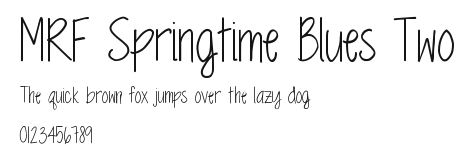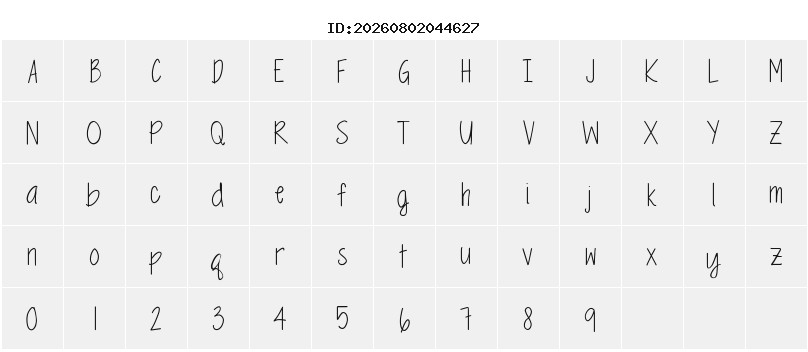
MRF Springtime Blues Two Preview
• Font Name: MRF Springtime Blues Two
• Full Font Name: MRF Springtime Blues Two
• PostScript Name: MRFSpringtimeBluesTwo-Medium
• Character Count: 84
• Designer: Sabrina Schleiger
About MRF Springtime Blues Two.ttf
MRF Springtime Blues Two.ttf is a modern, elegant sans-serif font designed for ultimate readability and visual harmony. Perfect for branding, headlines, web design, and print materials.